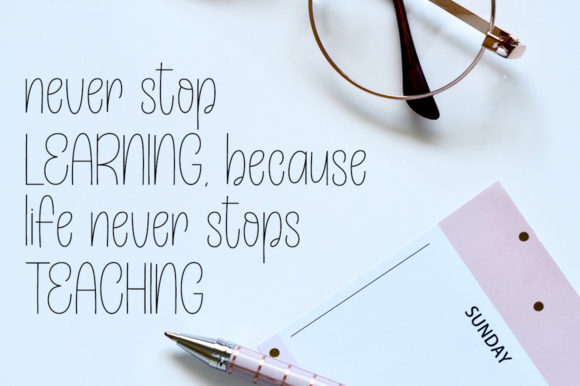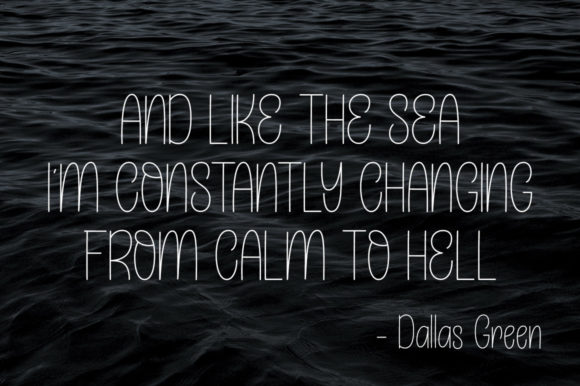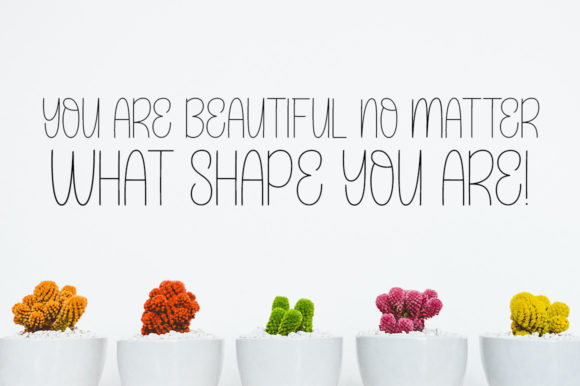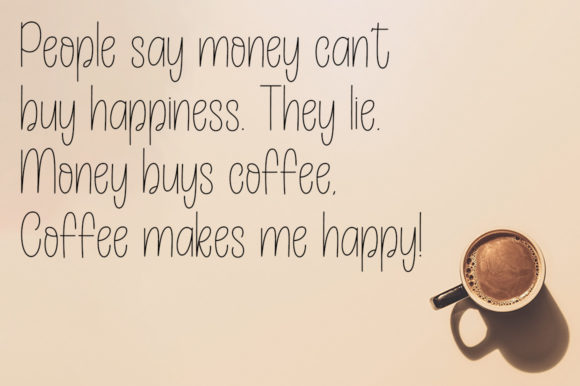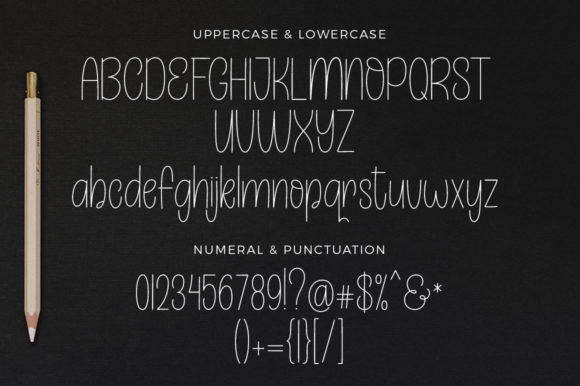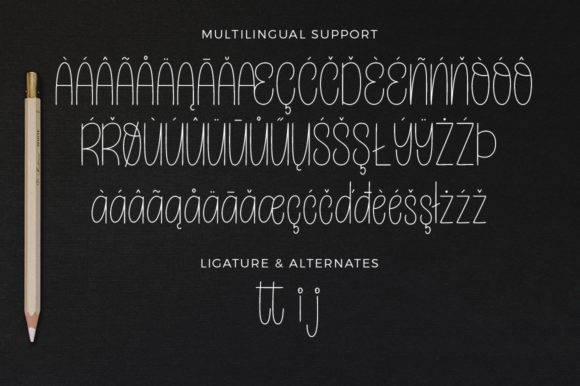
Beautiful Caroline Font
About Beautiful Caroline Font
Beautiful CarolineĀ is a cute and simple lettered handwritten font that can be used for all chalkboard quotes or teaching material! Its authentic look will add a personal and realistic feel to your designs.